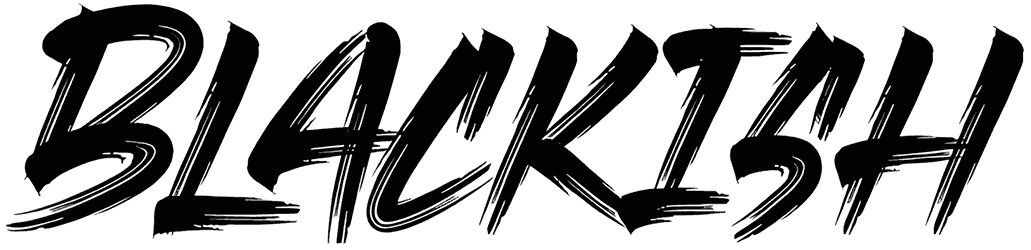
Blackish Font
Create your typography with this natural hand-drawn brush font that has a vibrant and feisty mood; besides, Blackish has an urban style, making your design compelling and convincing.
The rough letterforms of Blackish provided don’t contain lower case alphabets and a set of numbers. Also, the paintbrush characters and their amazing faded effect look enchanting and lively! You might want to give it a try in movies, posters, boxes, and banners.